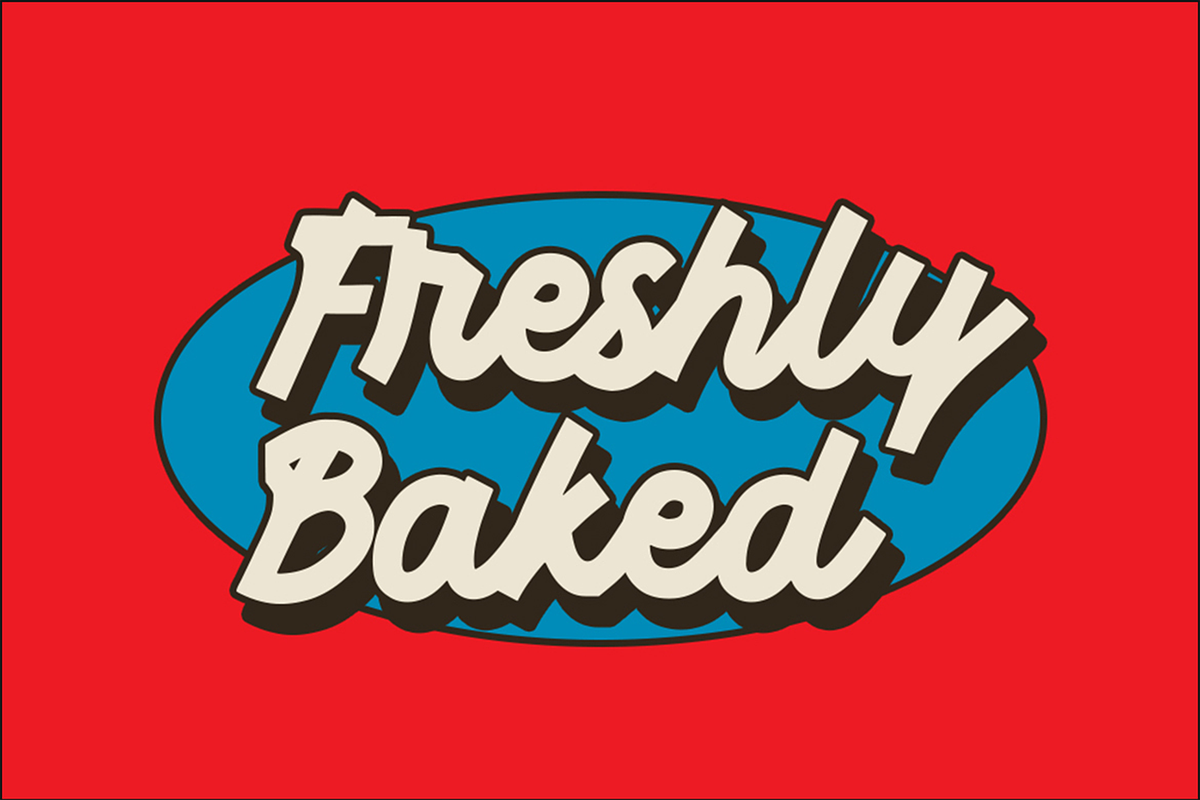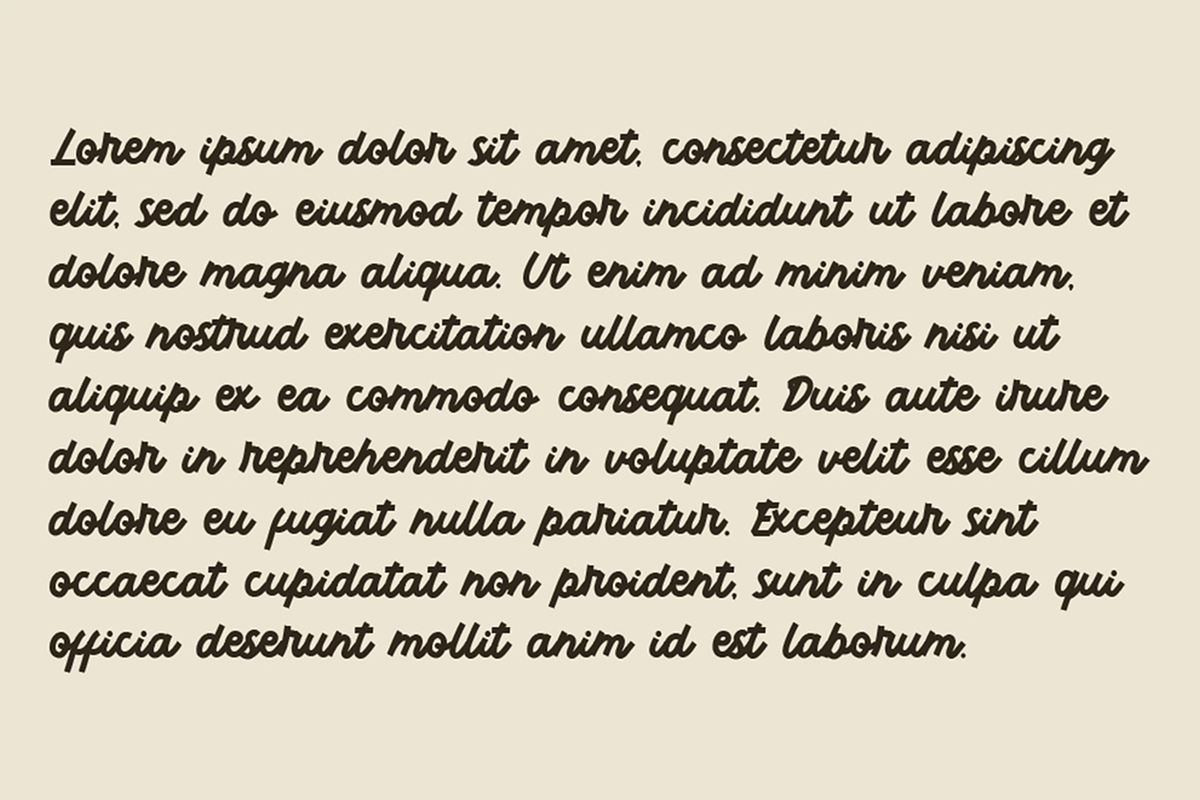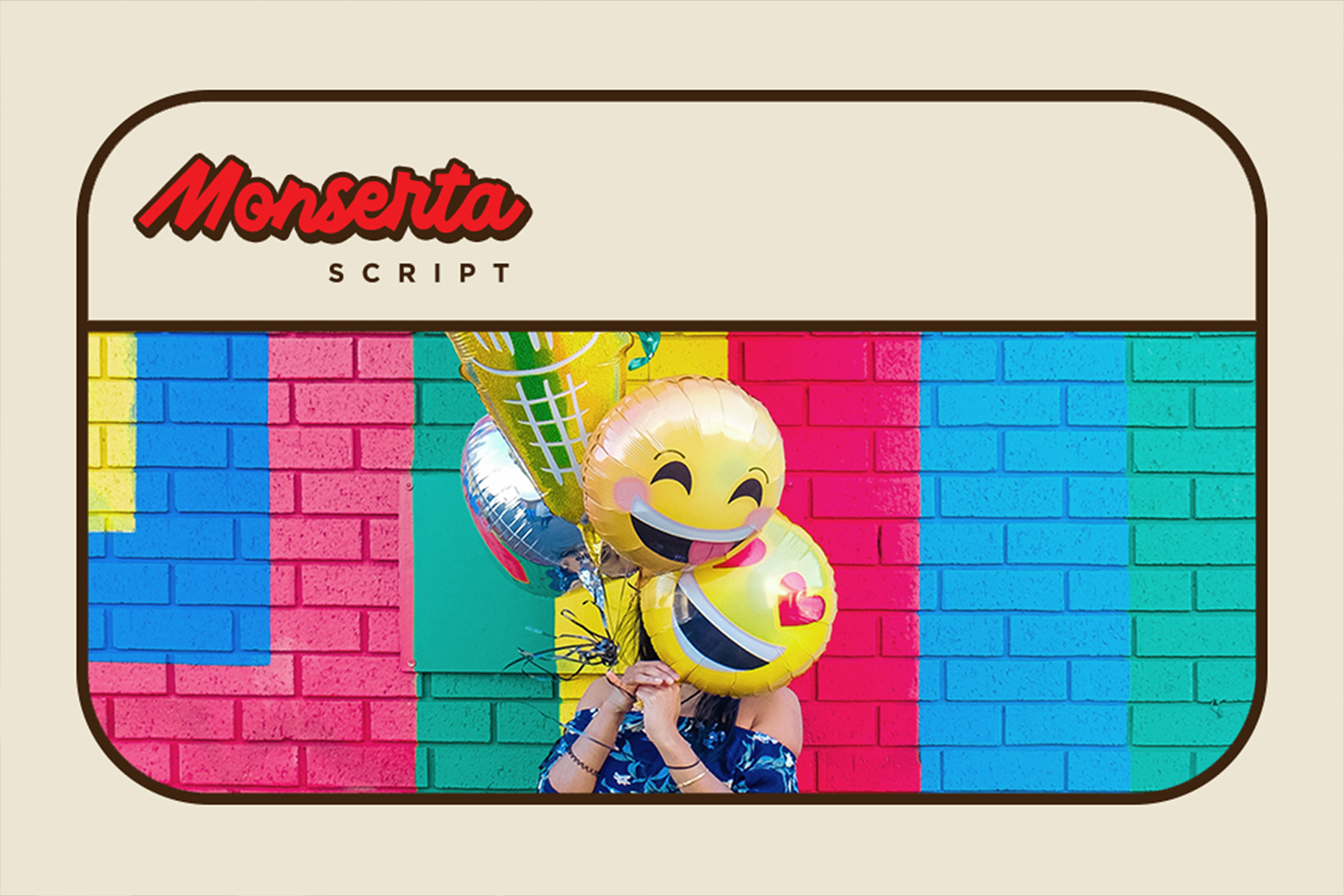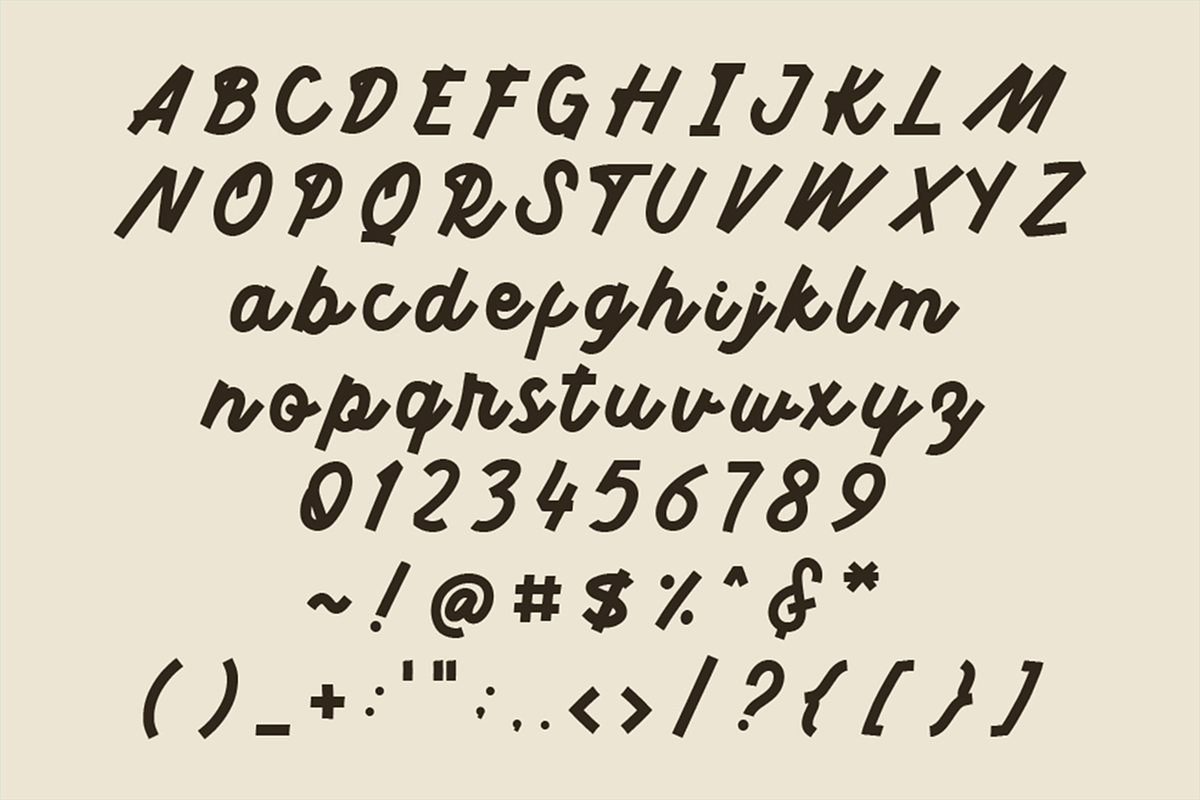
Monserta - Square Fun Script Fonts
Inspired by the vintage toys, snack, ice cream packaging for kids product, We came up with this idea of the typeface to bring back your childhood in a sec for your design. Please welcome, Monserta. A bold and square script lettering font. Perfectly fit for food and beverage products, toys, posters, clothing, merchandise, casual branding, logo, etc.